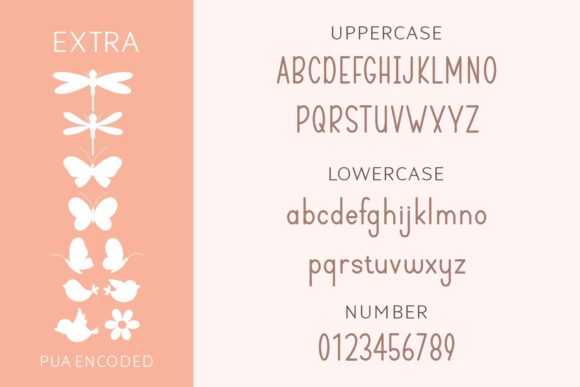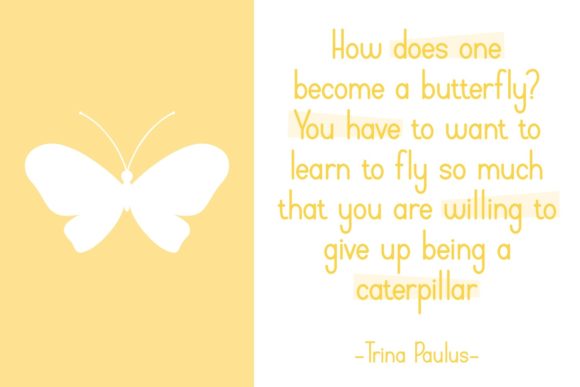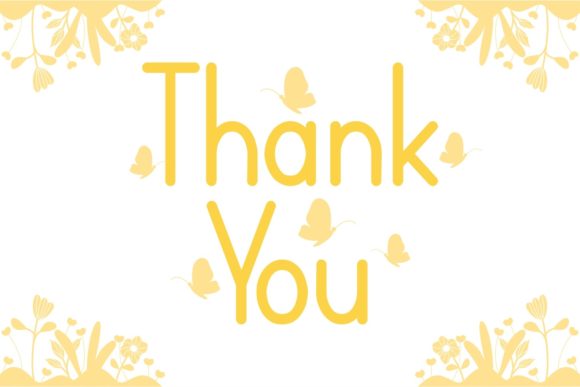
Introduction to Cutefly Font
Cutefly is a cute and thin lettered handwritten font.
This font is PUA encoded which means you can access all of the glyphs and swashes with ease .
Key Features of Cutefly Font
Why Choose Cutefly Font?